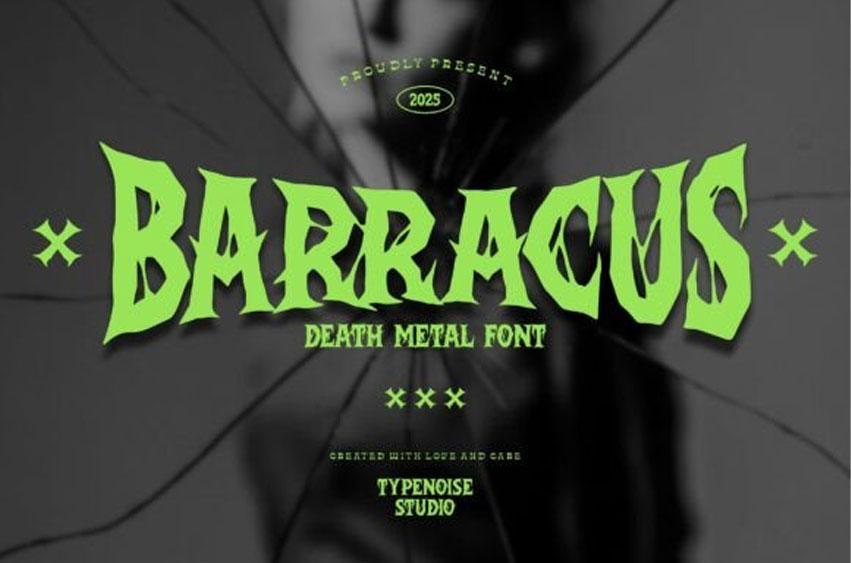
Barracus Font
Barracus Font is a death metal font, this font is made for any professional project with a metal music theme, such as logotype bands, watermarks, album covers, poster bands, t-shirt bands, promotions, product packaging, etc.
Every letter has a sharp and rock touch. Barracus font includes a full set of uppercase and lowercase letters, numerals, punctuation, and alternative characters.